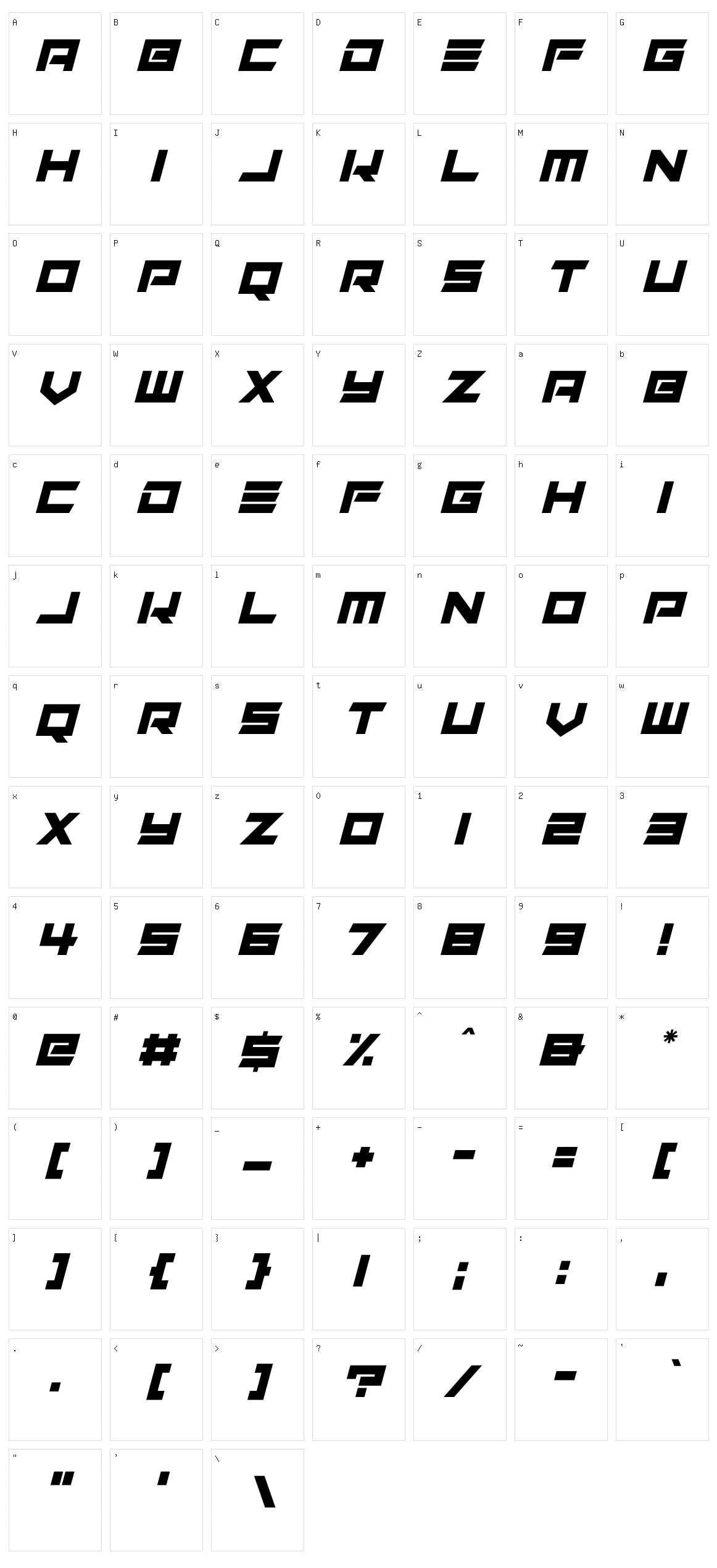
The free font Alien Remix is carefully designed by Hawtpixel, showcasing a thoughtful balance of creativity and usability and falls under the Square font style. When you download the ZIP file, it contains only 38.39 KB of font files, making it lightweight and quick to download. Please review the license details below to understand permitted usage and distribution rights. If license information is not available, we recommend using this font for personal projects only or contacting the author directly for commercial usage permissions.